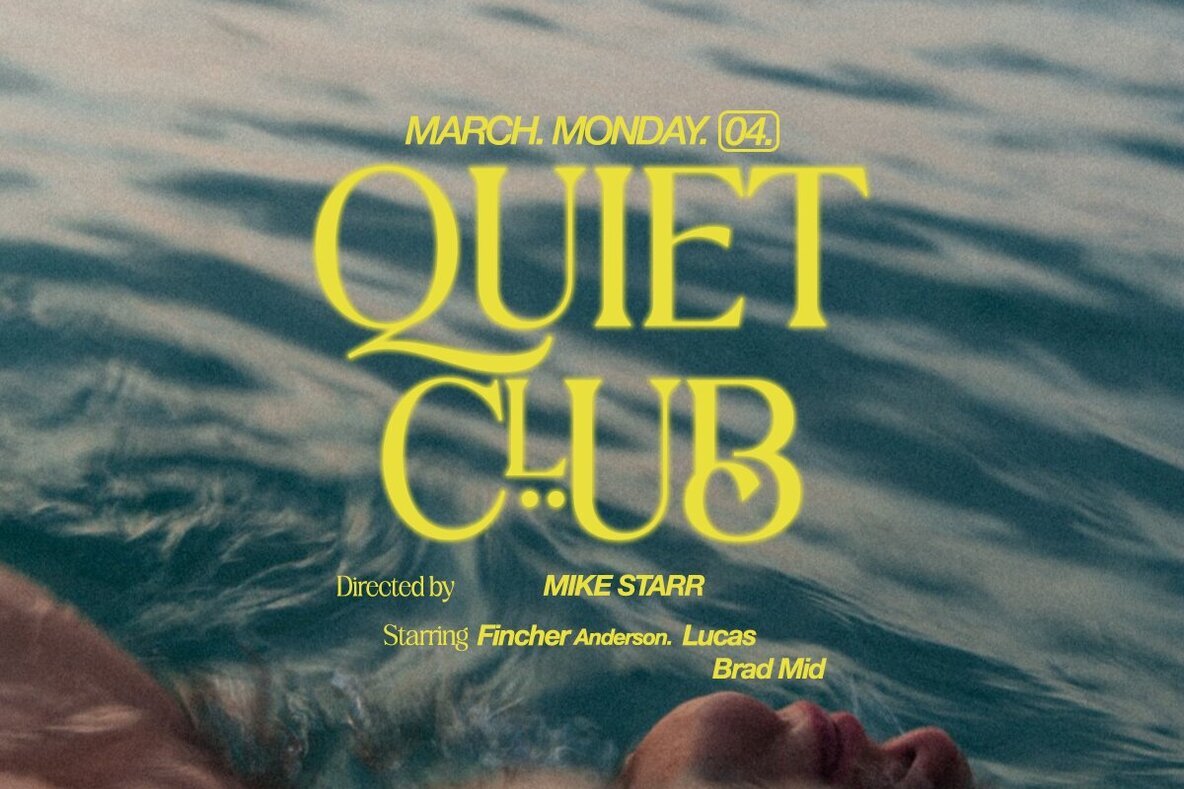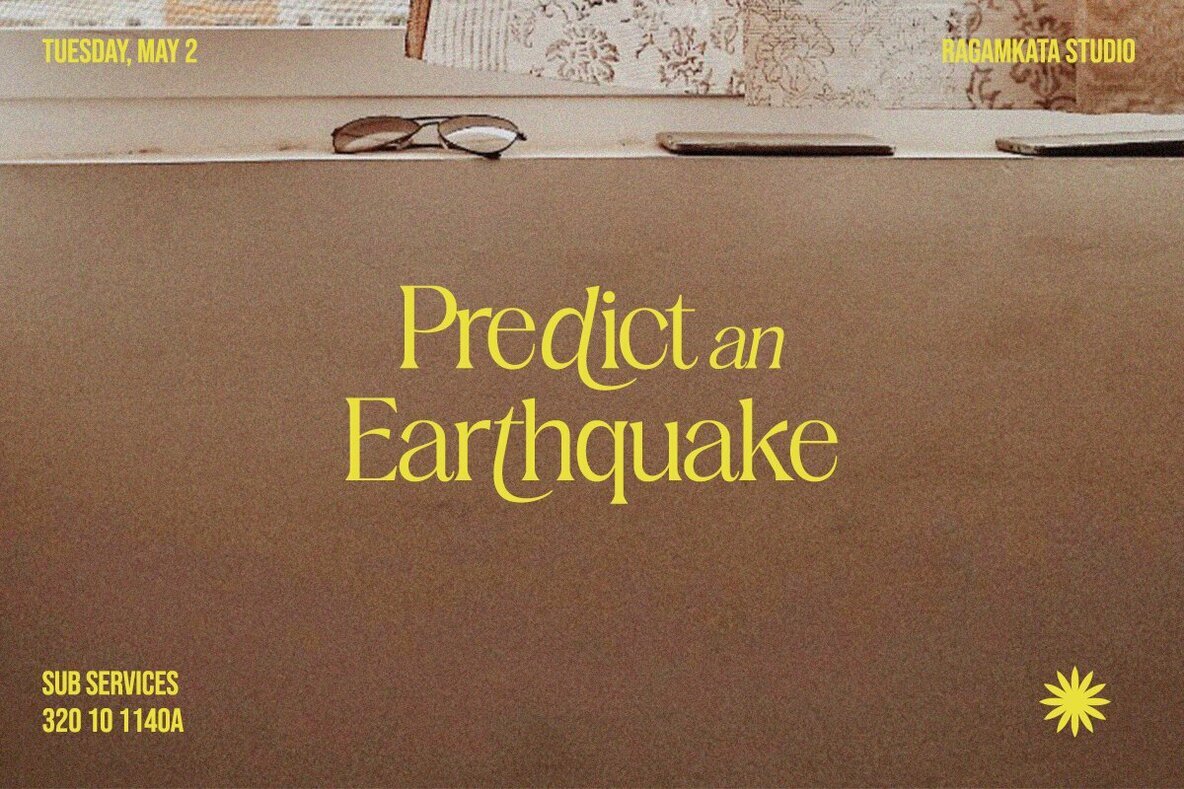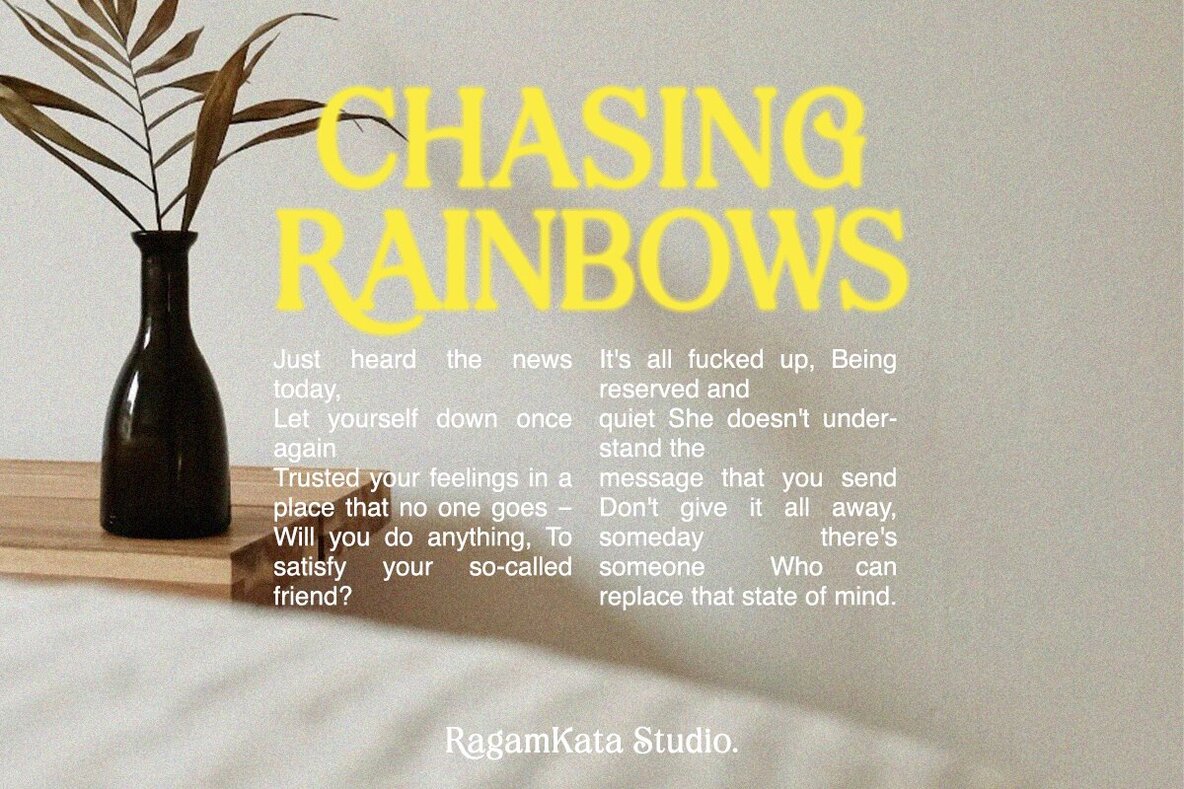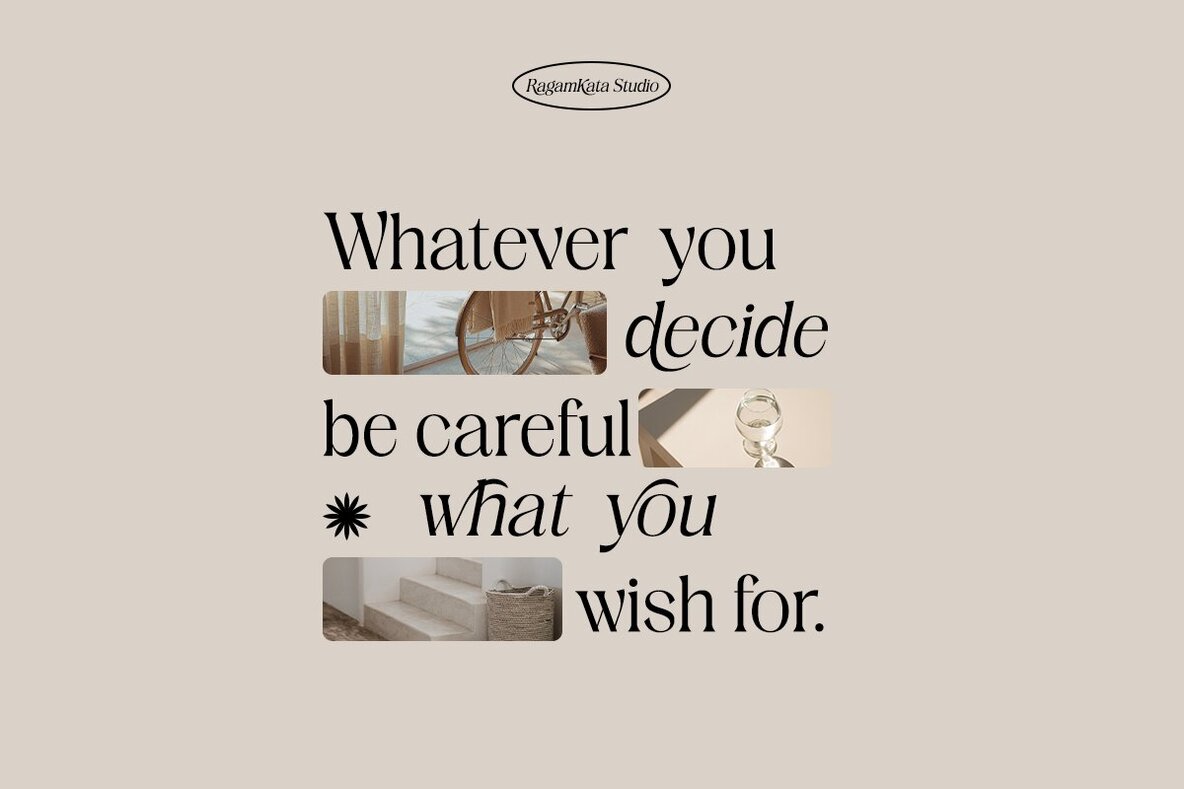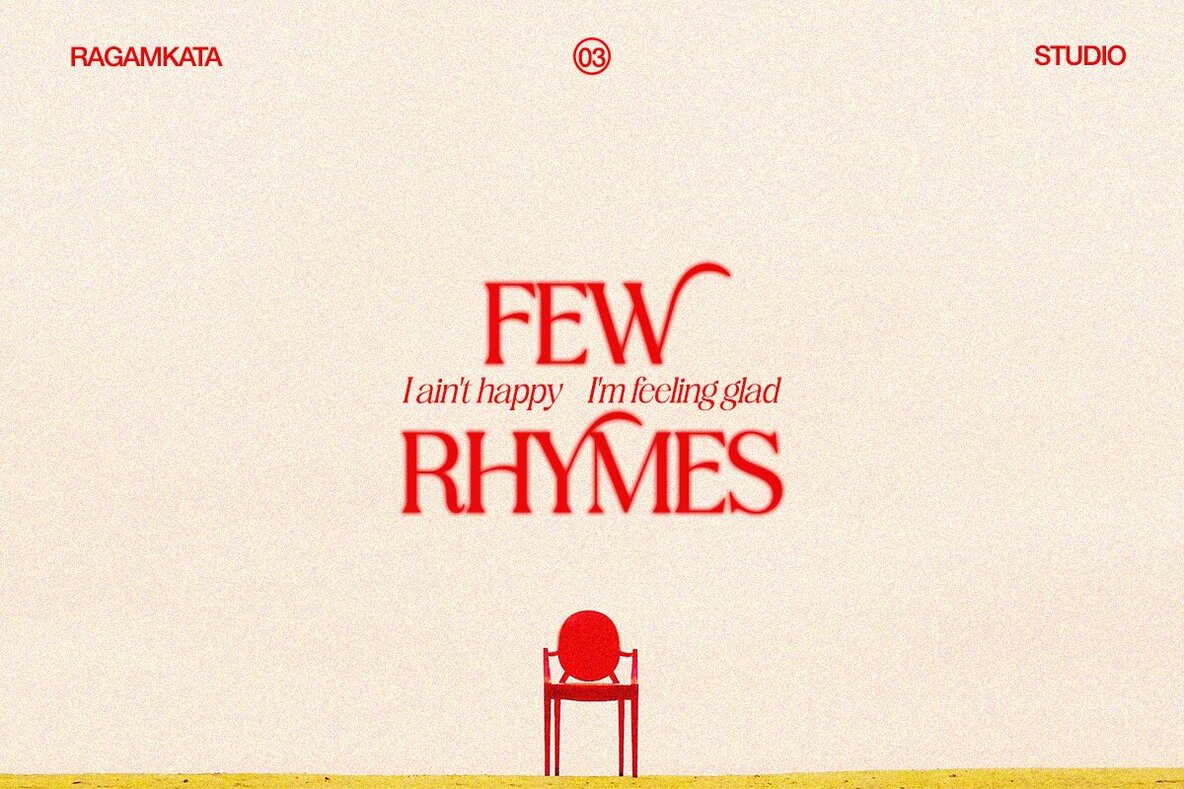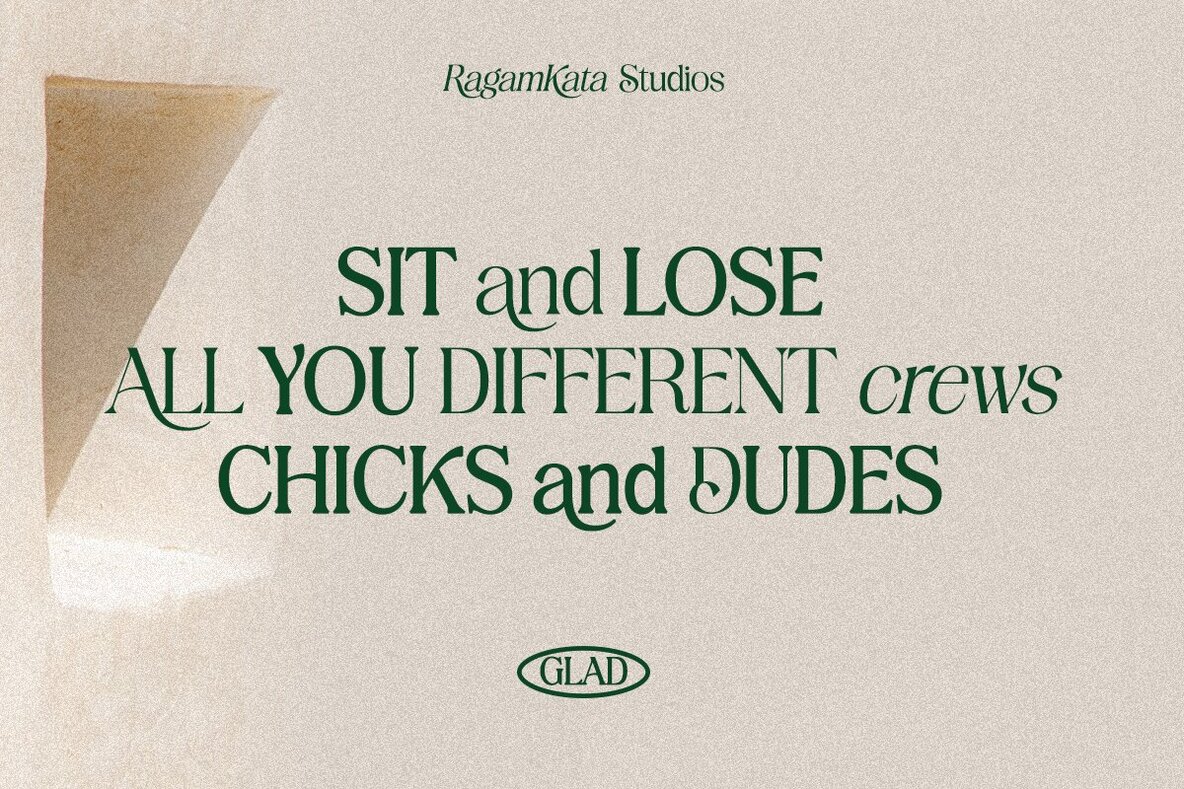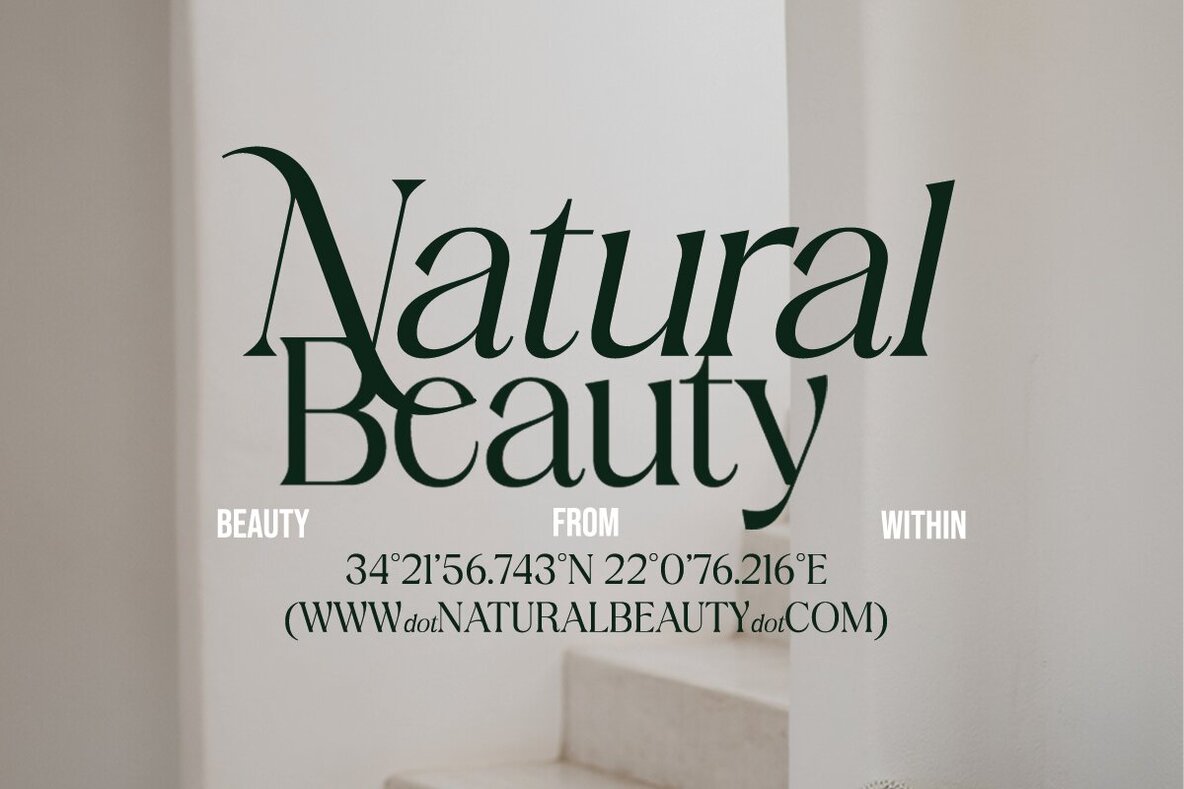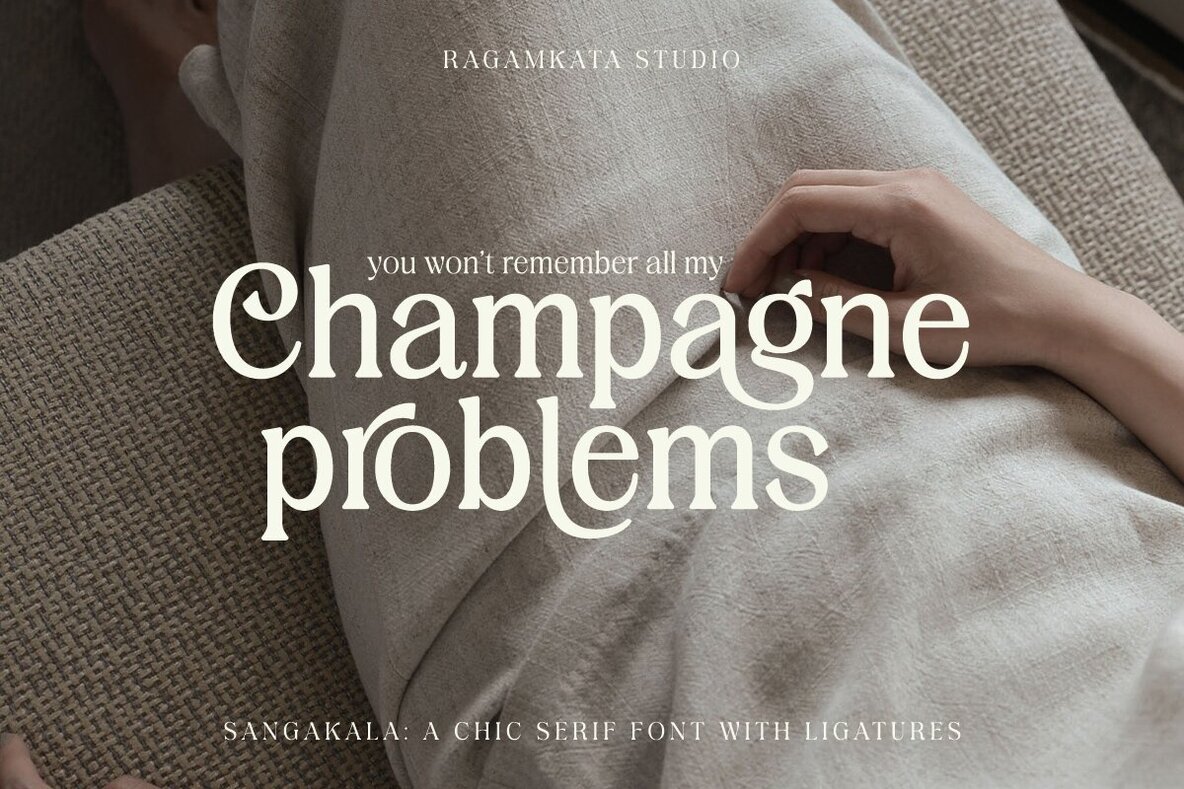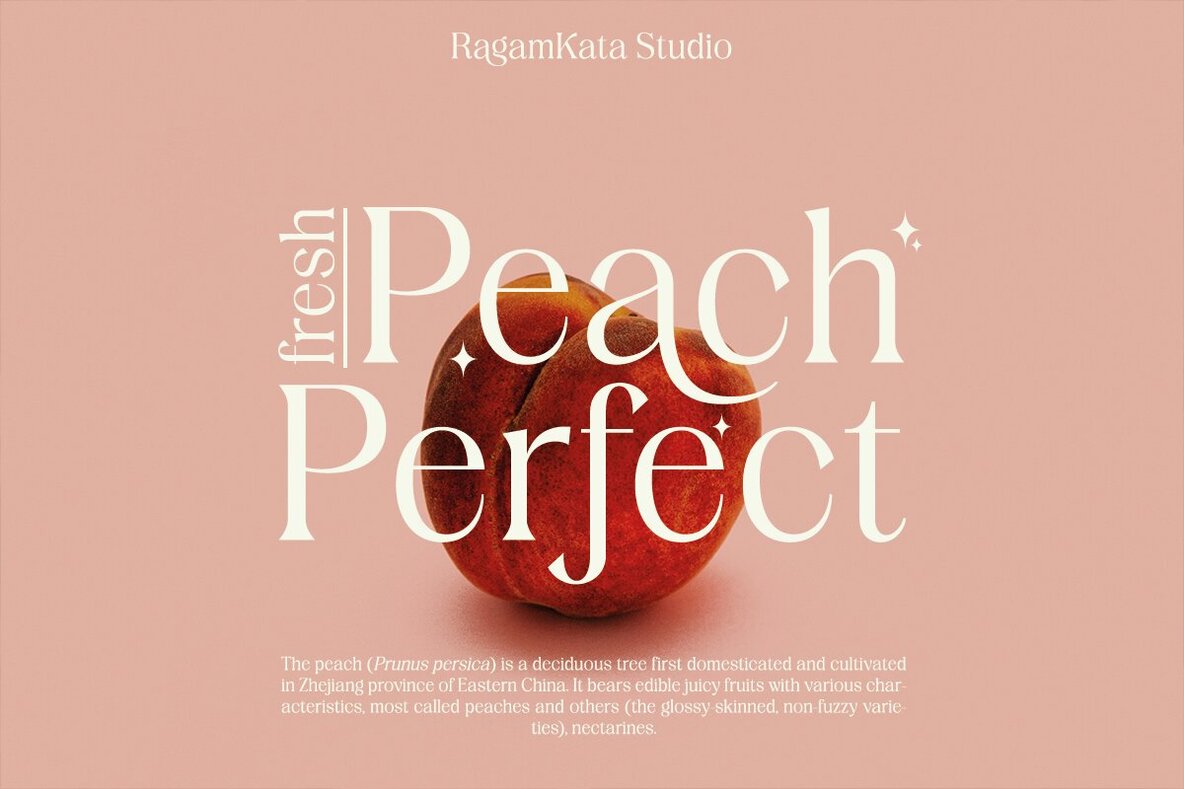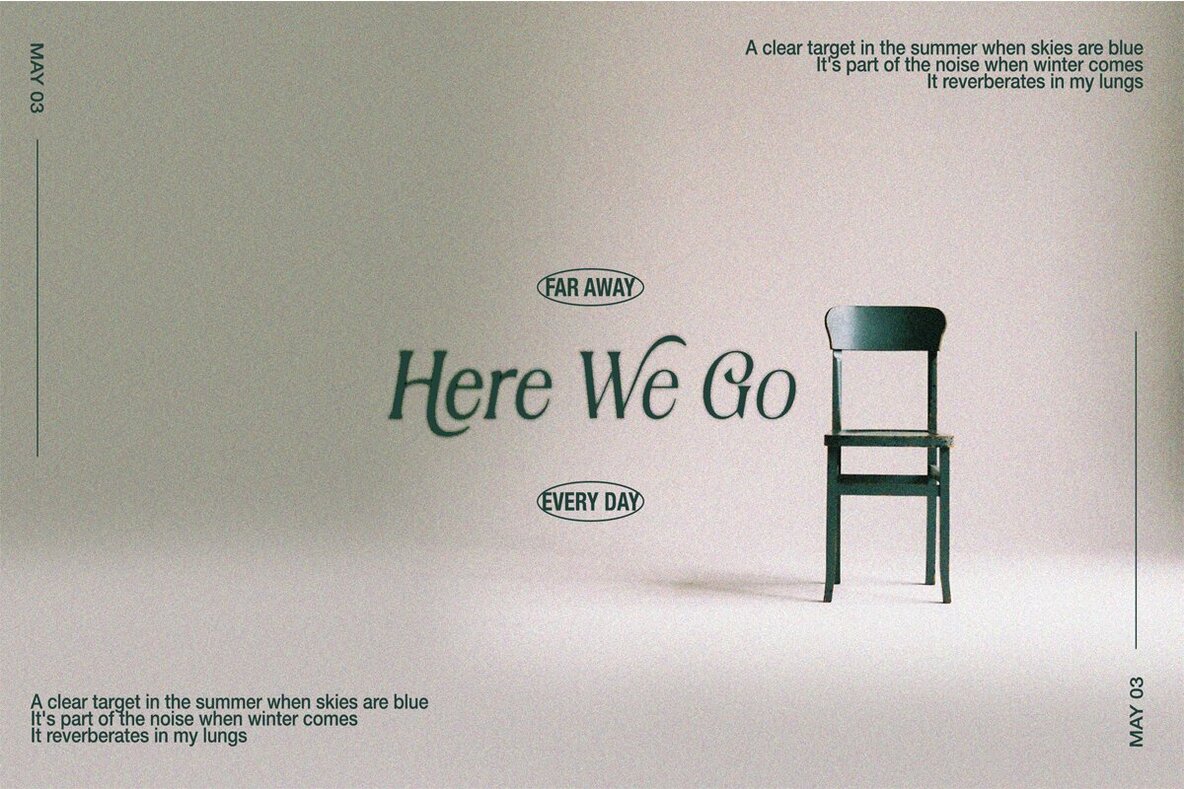
Sangkala Font
Sangkala is A serif modern and classic typeface that has own unique style & modern look. This typeface is perfect for an elegant & luxury logo,book or movie title design, fashion brand, magazine, clothes, lettering and quotes. Sangkala Features: